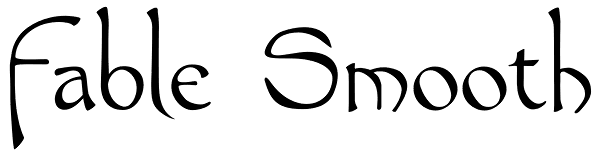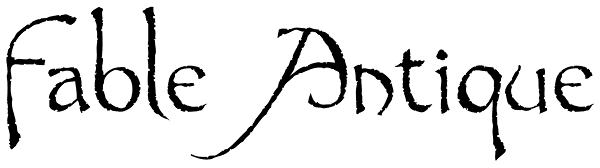
Fable
Fable is an elegant, hand-crafted typeface that evokes the magic of fantasy weddings, of castles and wizards, of dragons and dungeons. Among others it combines elements that are suggestive of Greek mythology, of runic scripts, of Scandinavian tales...
Fable Smooth
Fable Antique